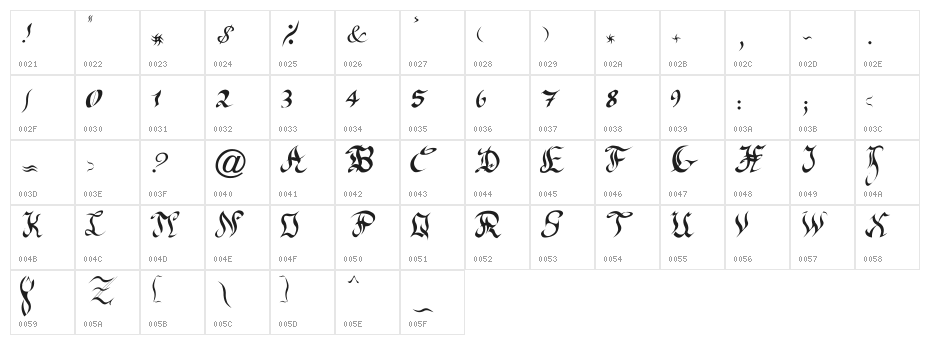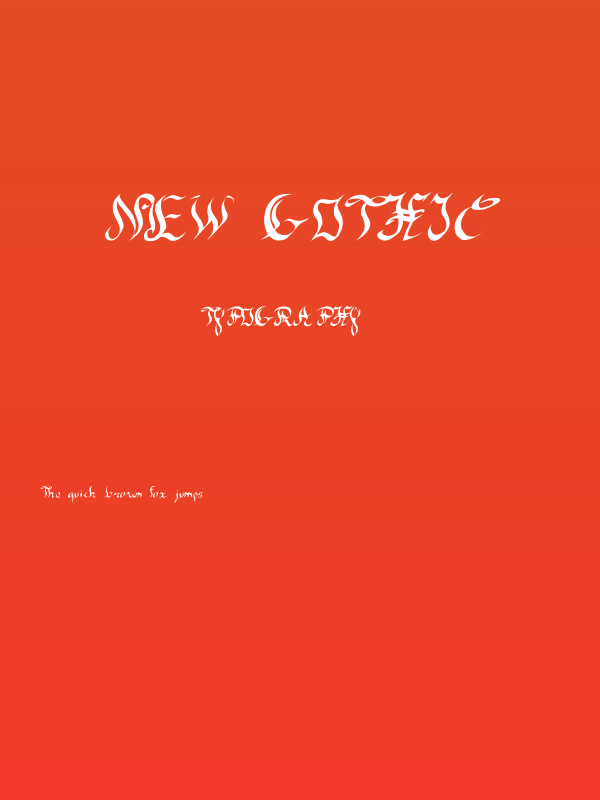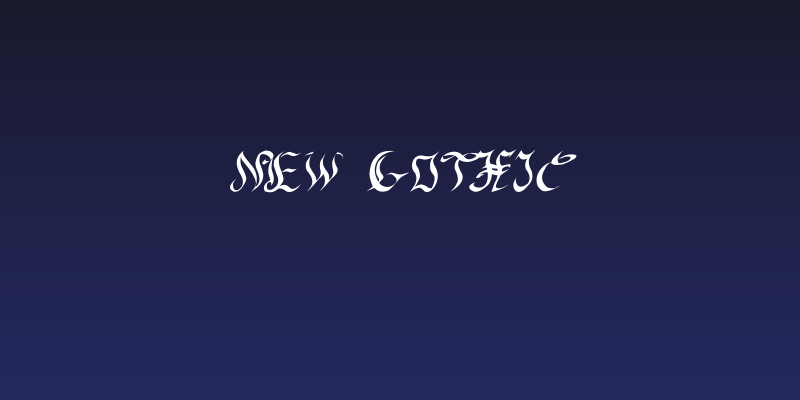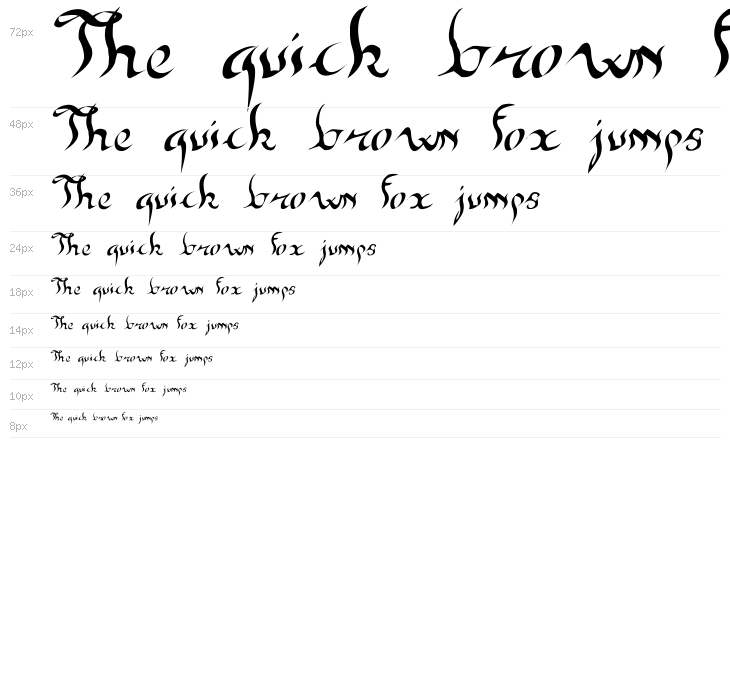
New gothic Font
New gothic Description
This font features a dramatic and intricate design, reminiscent of traditional Gothic styles but with a modern twist. The characters are highly stylized, with sharp edges and flowing curves that create a sense of movement and elegance. The uppercase letters are particularly elaborate, with ornate details that give them a striking appearance. The lowercase letters maintain a consistent style, offering a balance between readability and artistic flair. Numbers and special characters follow the same design principles, ensuring a cohesive look across all elements. This font is ideal for projects that require a bold and artistic statement.
Use CaseLogos, Headlines, Decorative purposes
Proposed ProjectsIdeal for album covers, posters, branding for edgy or alternative products, and any project seeking a bold, artistic statement.